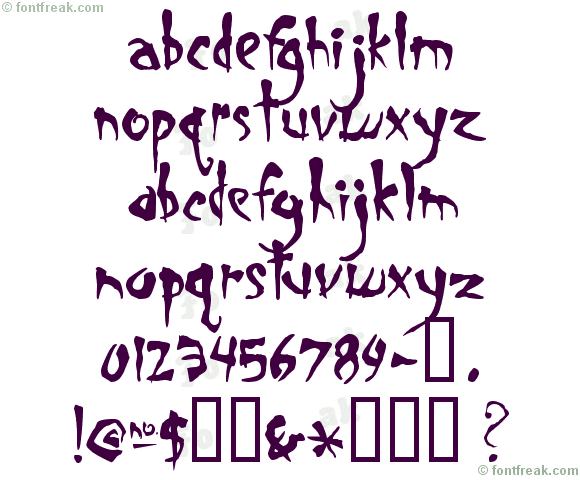
Smegalomania
About Smegalomania
Smegalomania by Robotic Attack Fonts is a captivating display font that embodies a unique blend of whimsy and artistry. This freeware font features a distinctive handwritten style, characterized by its irregular letterforms and playful strokes. The font exhibits a medium stroke weight with slight variations, adding a sense of dynamism and character to each letter. The spacing between characters is slightly loose, allowing for enhanced readability while maintaining a casual, organic feel. Decorative elements are present in the form of exaggerated curves and playful flourishes that give the font a lively personality.
Ideal for various creative projects, the Smegalomania font shines in contexts such as quirky wedding invitations, eye-catching movie posters, and vibrant restaurant menus. Its playful nature makes it perfect for branding efforts aimed at attracting a youthful audience, particularly in industries like entertainment, food, and arts. Graphic designers will find this font to be an excellent choice for projects that require a touch of creativity and uniqueness, while small business owners can utilize it to craft memorable marketing materials that stand out in competitive markets.
The target audience for Smegalomania includes graphic designers, small business owners, and content creators seeking to infuse their projects with a sense of fun and individuality. With its intriguing visual appeal and versatile applications, the Smegalomania font free download offers an excellent opportunity for anyone looking to enhance their design toolkit. This font stands out not only for its aesthetic qualities but also for its ability to evoke a sense of joy and creativity, making it a valuable asset for any project that aims to capture attention and inspire.